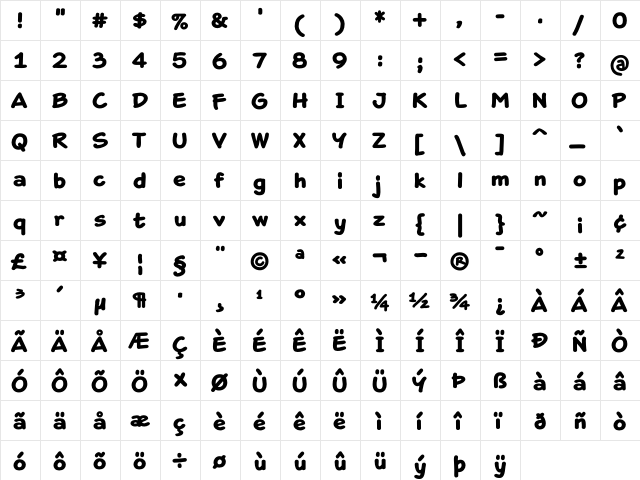
LHF Quick Draw Regular
| Foundry | Dan Swatsky for Letterhead Fonts |
| Designer | Dan Swatsky for Letterhead Fonts |
Design Context for LHF Quick Draw Typeface
LHF Quick Draw is a composed and adaptable typeface that performs quietly and consistently across a wide range of design contexts.